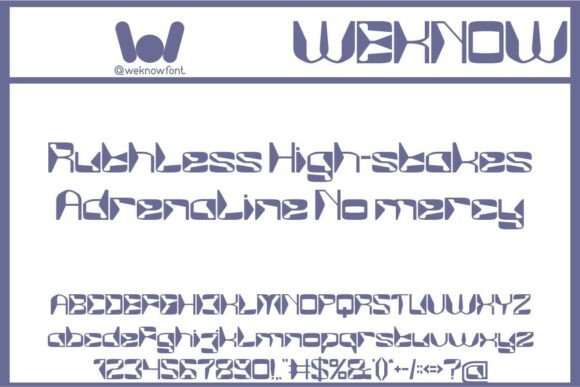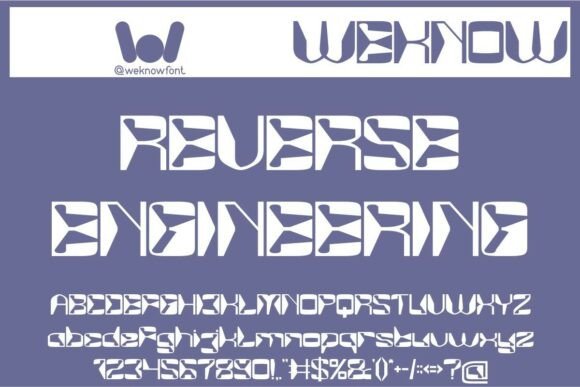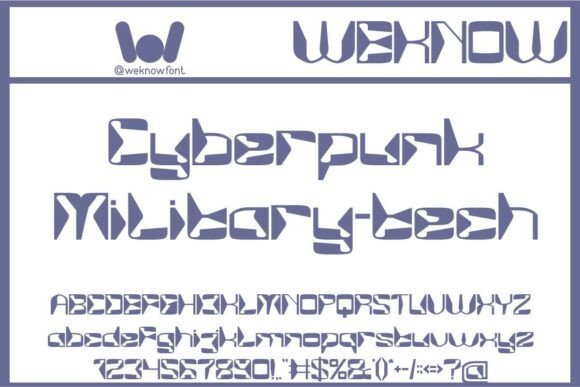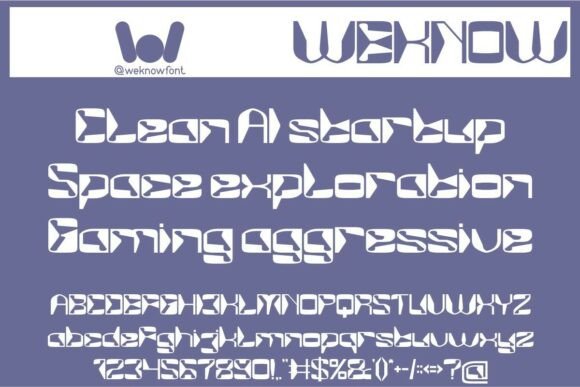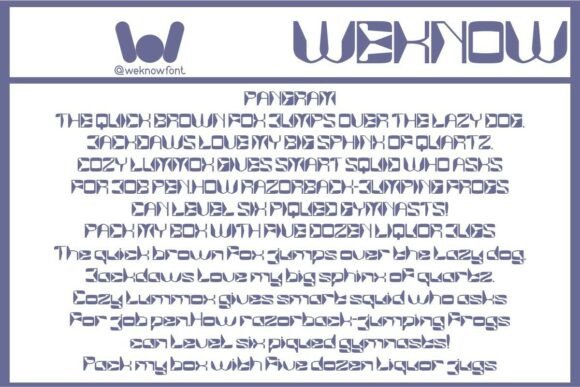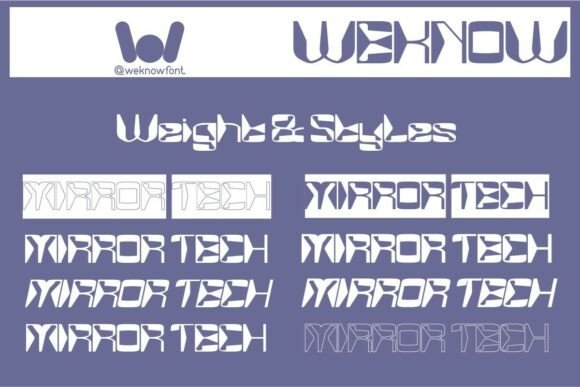
Introduction to Mirror Tech Font
Have you ever stared at a blank canvas, itching to bring your creative vision to life, only to be held back by the perfect font? For designers, finding the right typography can be the difference between a mediocre project and a masterpiece. That’s where Mirror Tech Font comes in – a revolutionary design resource that’s about to change the game.
Imagine a font that’s not just visually striking, but also high-quality and adaptable to any creative project. Mirror Tech Font is a potent fusion of techno and sci-fi aesthetics, crafted to add a punch of modernity to your designs. With its geometric angularity and transparent background, it’s the perfect tool for designers who want to make a lasting impression.
Key Features of Mirror Tech Font
- High-quality design for creative projects, ideal for use as a design resource
- Unique, futuristic style with a transparent background, allowing for versatility in design
- Perfect for use in digital design, graphic design, and creative projects requiring a modern and sleek aesthetic
Honest Review: Mirror Tech Font
As a designer, I’m always on the lookout for high-quality fonts that can elevate my creative projects. Recently, I stumbled upon the Mirror Tech Font, and I must say, it’s been a game-changer.
- Modern and sleek design that’s perfect for tech-related projects
- Clear and legible font that’s easy to read even at small sizes
- Transparent background option makes it easy to use on any design resource
I’ve used the Mirror Tech Font for several projects, and I’m consistently impressed with the results. It’s a versatile font that works well for everything from logos to headings.
- Limited character set, which can make it difficult to use for projects that require a wide range of characters
- No bold or italic weights, which can limit its use in certain design scenarios
Overall, I’m a big fan of the Mirror Tech Font. Its sleek design and clear typography make it a valuable addition to any designer’s toolkit.
Mirror Tech Font
The Mirror Tech Font is a unique design resource perfect for creating high-quality, visually striking visuals for your creative project. This font offers a sleek, modern aesthetic that’s ideal for a wide range of applications.
Tips for Getting the Most Out of Mirror Tech Font
To maximize the effectiveness of the Mirror Tech Font, experiment with different font sizes, colors, and combinations to find the perfect look for your project.
The Mirror Tech Font is ideal for a variety of applications, including:
Alternatives to Mirror Tech Font
1. Retrofutur Font
Retrofutur Font is a high-quality design resource ideal for creative projects that require a vintage yet futuristic feel. It features a transparent background, making it perfect for overlaying on images or videos. Use Retrofutur Font for sci-fi themed designs, futuristic logos, or anything that needs a nostalgic yet advanced aesthetic.
Compared to Mirror Tech Font, Retrofutur Font has a more nostalgic and retro feel, while Mirror Tech Font has a sleeker and more modern design. Retrofutur Font is ideal for projects that require a blend of old and new elements.
2. Futura Condensed Font
Futura Condensed Font is a highly legible and versatile design resource suitable for a wide range of creative projects. It features a clean and modern design, making it perfect for corporate logos, infographics, or any design that requires a clear and concise message. Use Futura Condensed Font for projects that require a professional and sophisticated look.
Compared to Mirror Tech Font, Futura Condensed Font has a more straightforward and modern design, while Mirror Tech Font has a more futuristic and high-tech feel. Futura Condensed Font is ideal for projects that require a clean and professional aesthetic.